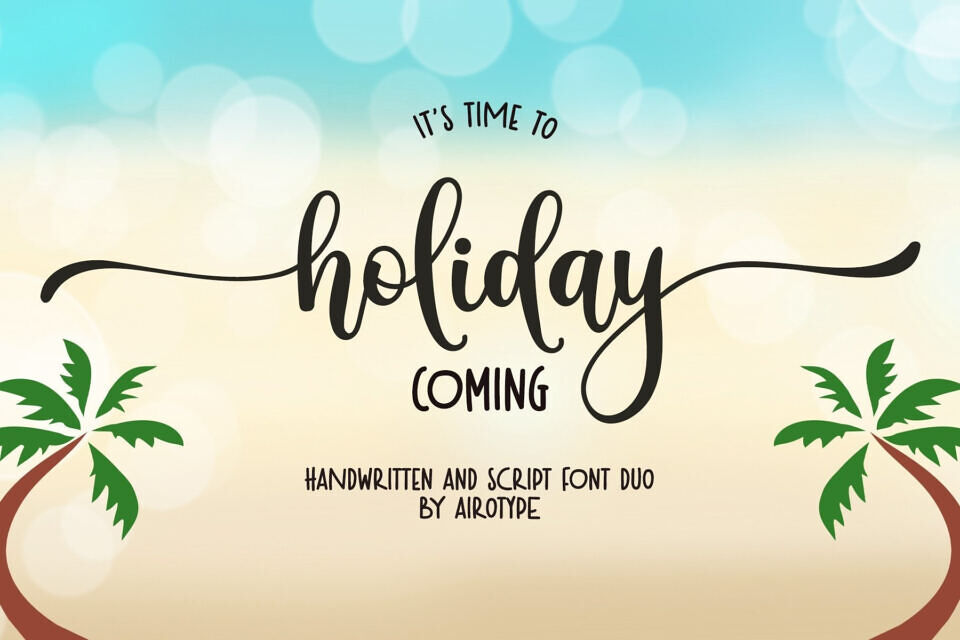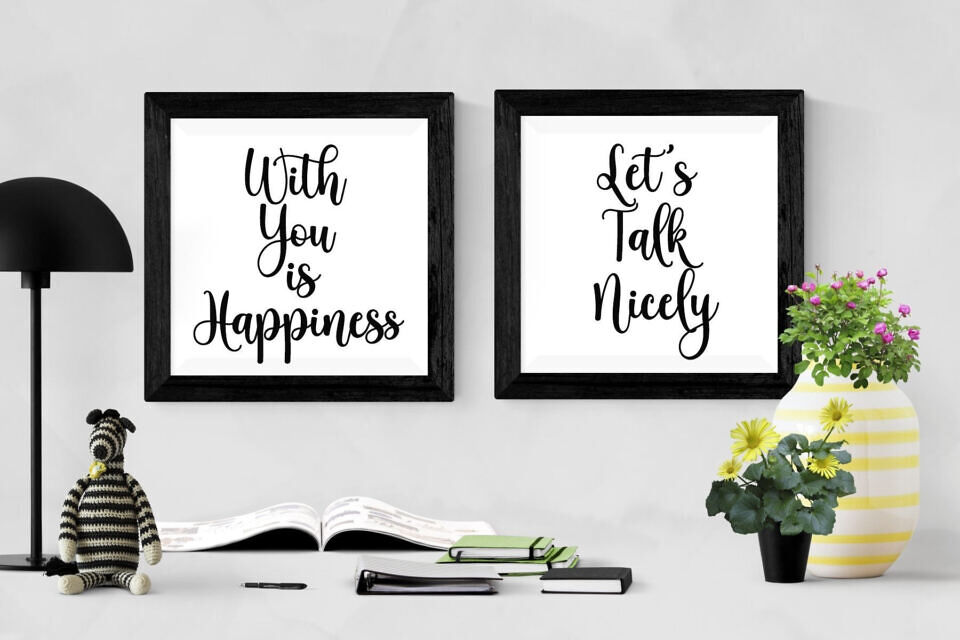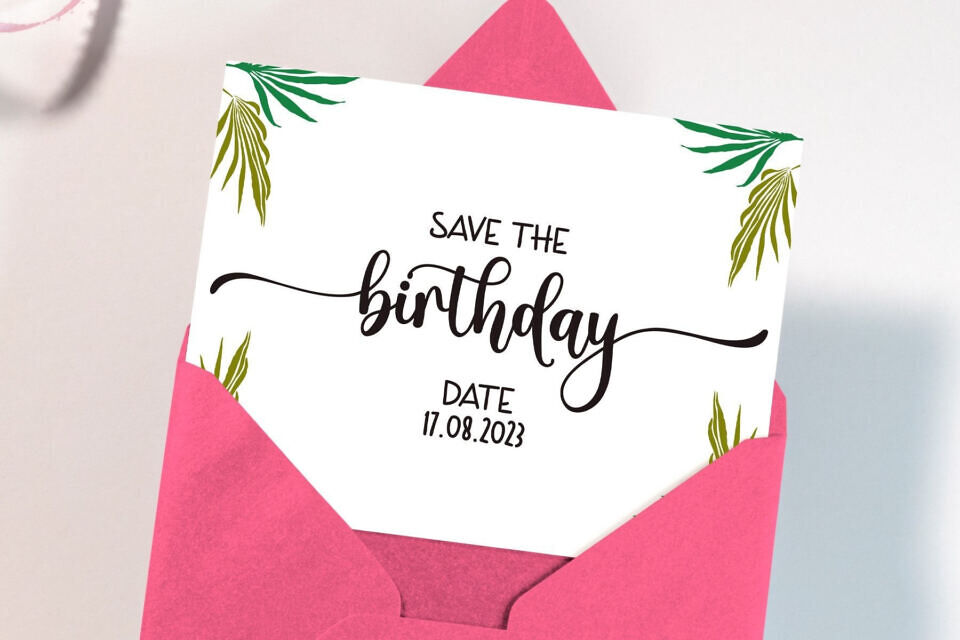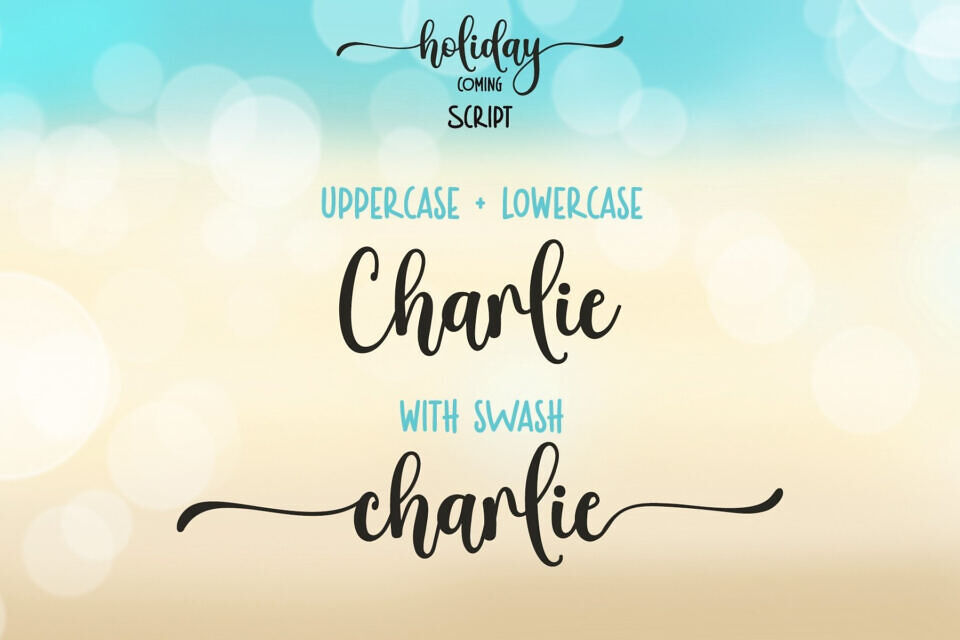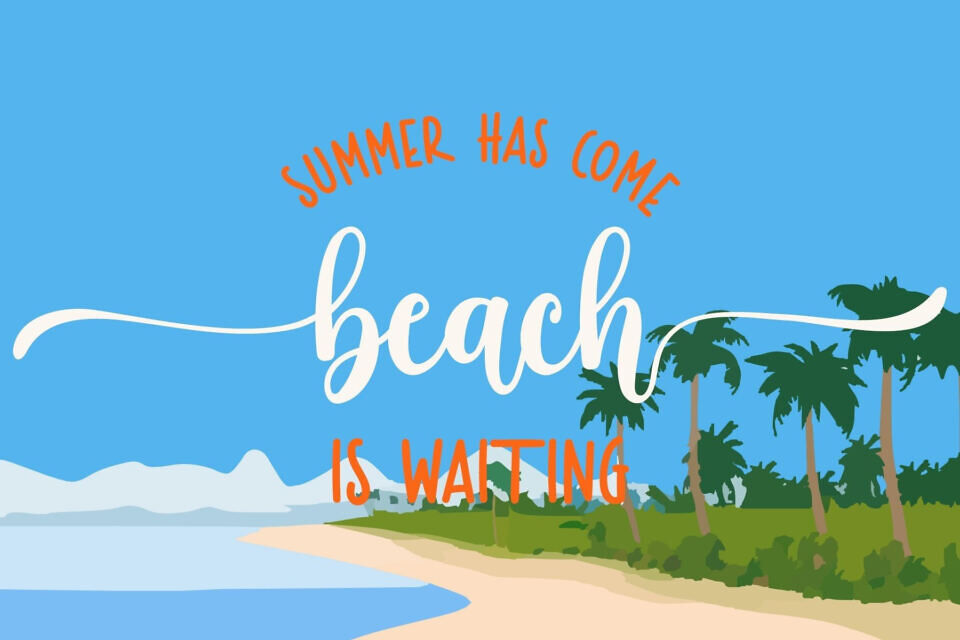
Holiday Coming is a handwritten and sans serif font duo with cute and playful vibes. The script one has swashes to give other options of designing.
Holiday Coming is the perfect font for any design such as crafting, wedding invitation, sticker, sublimation, t-shirt design, quotes, and many more.